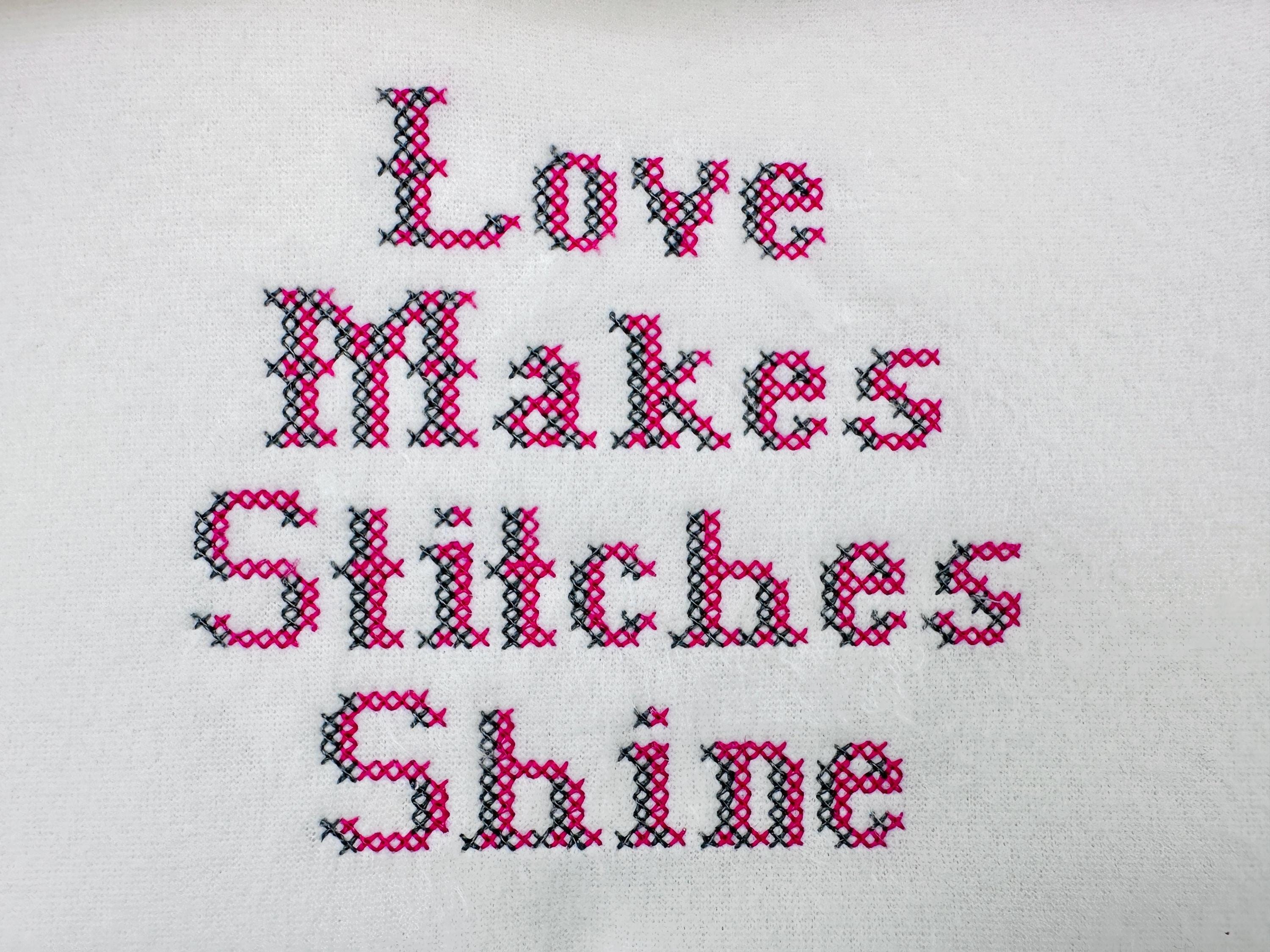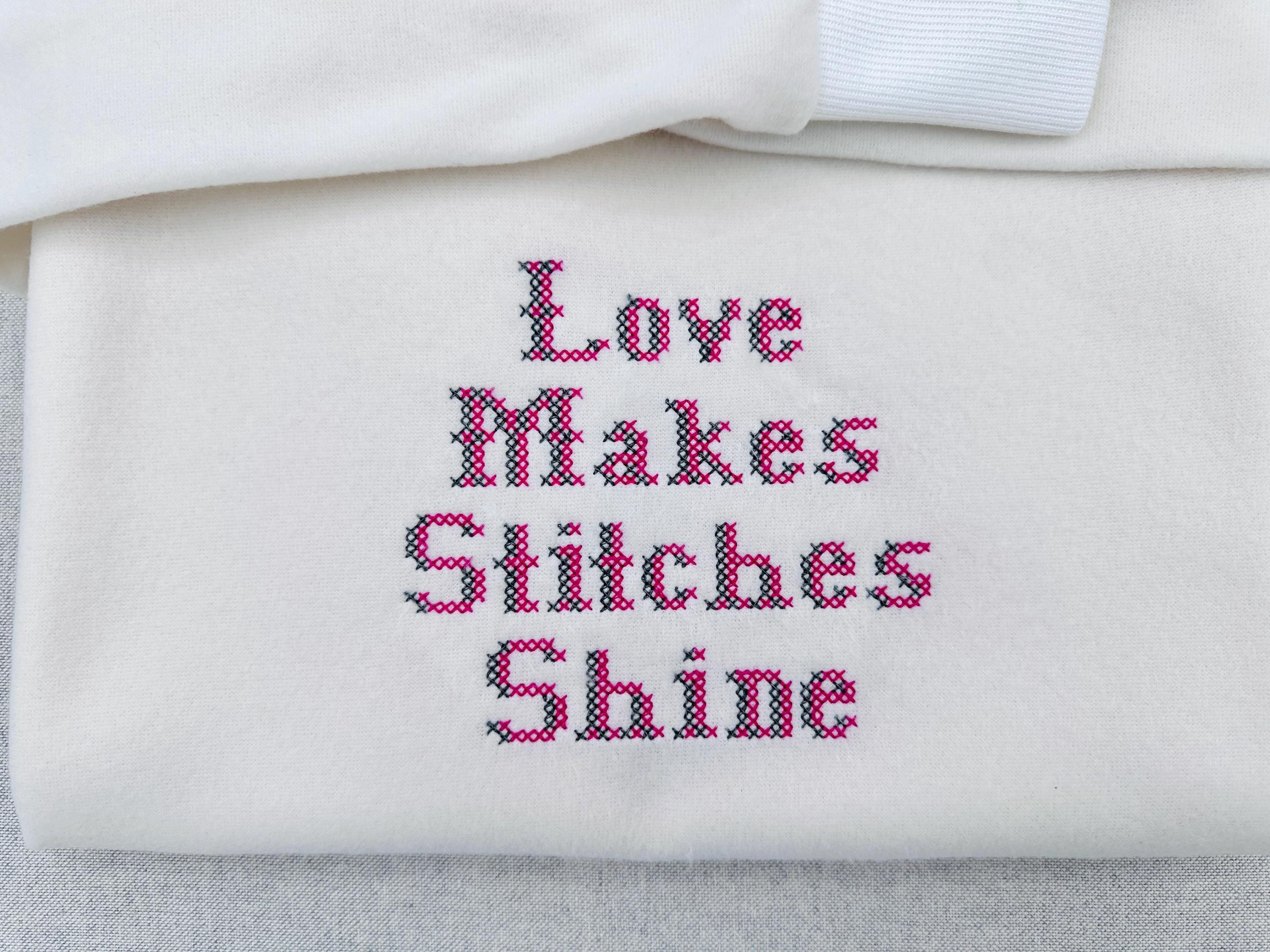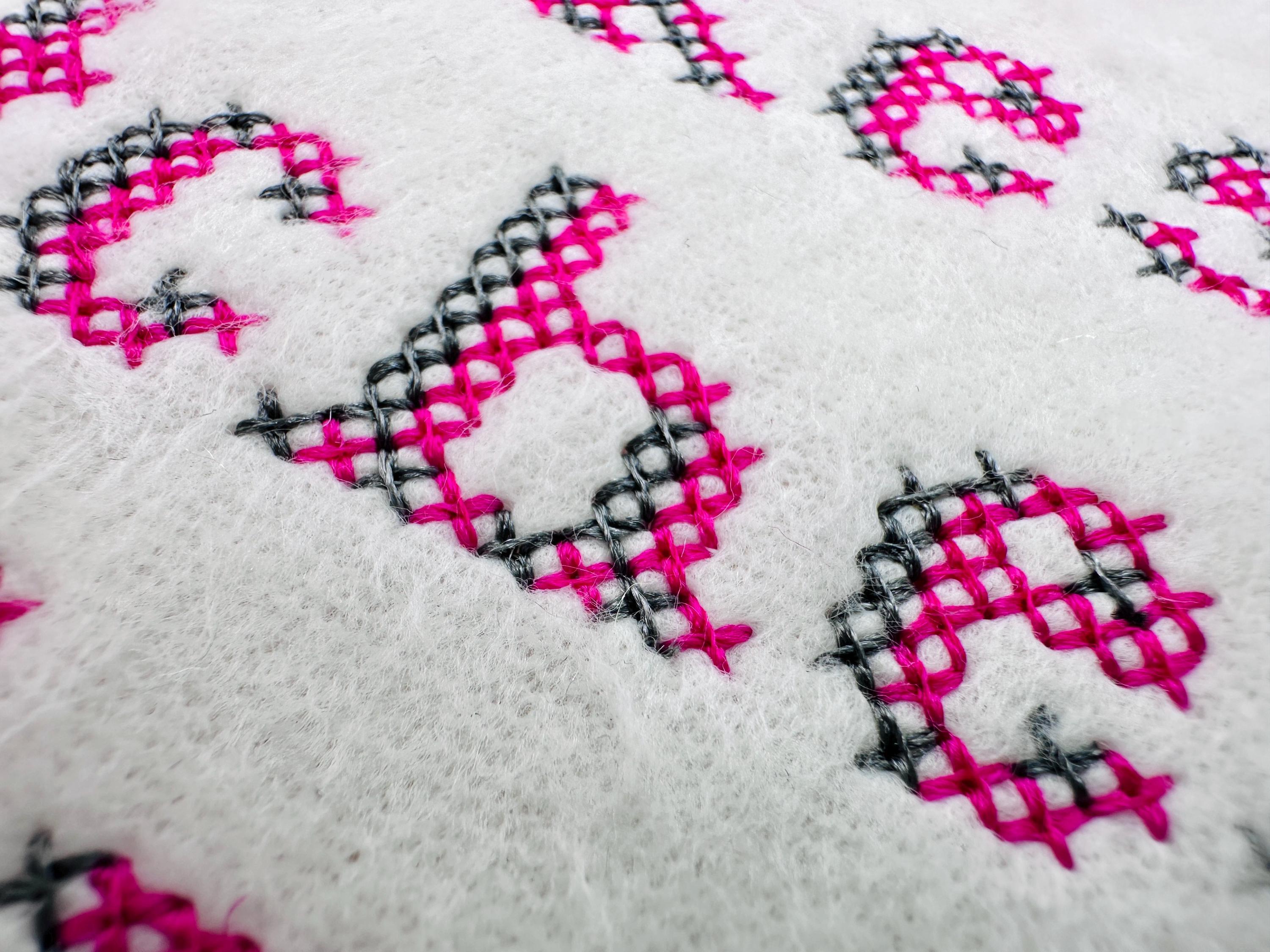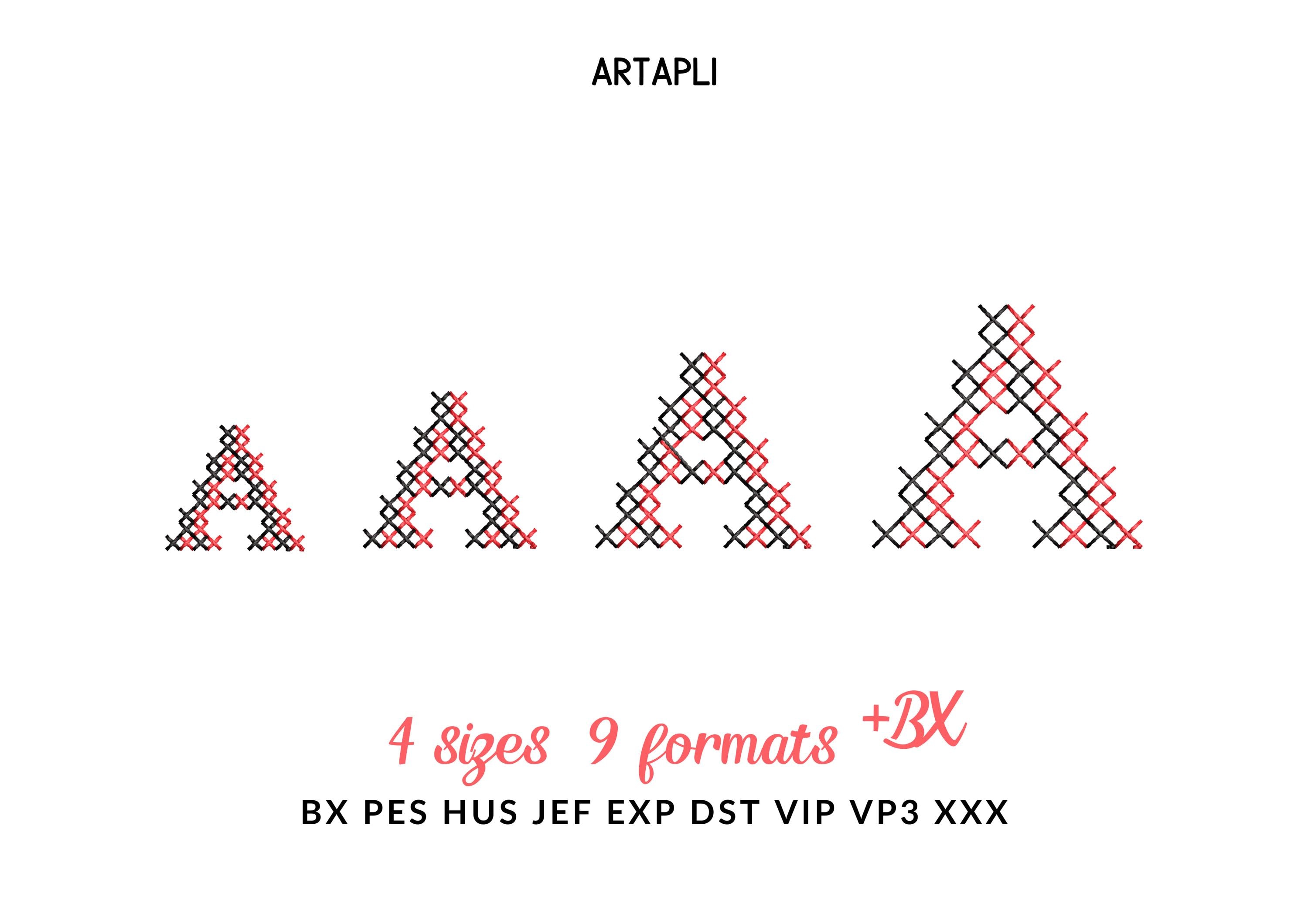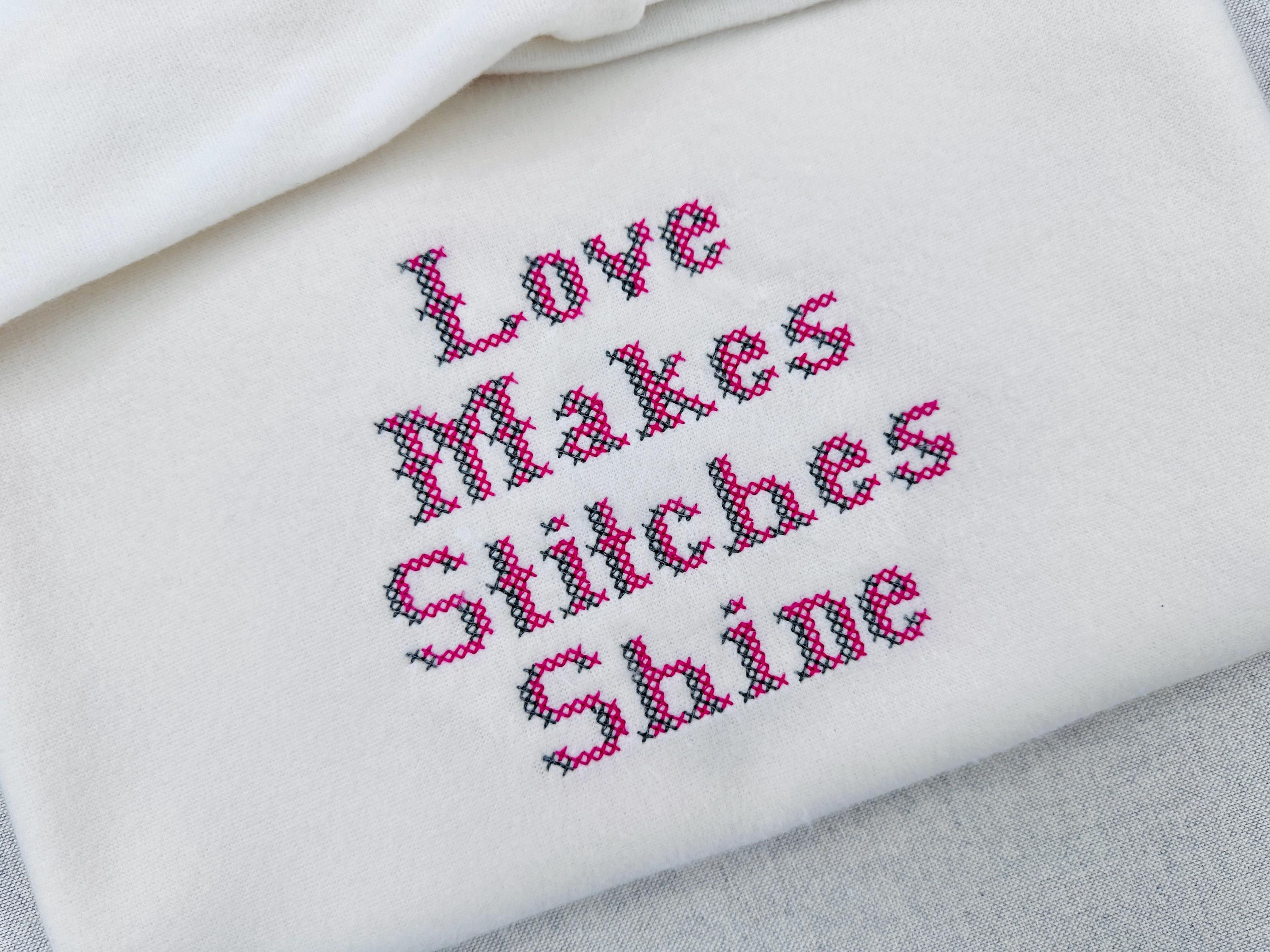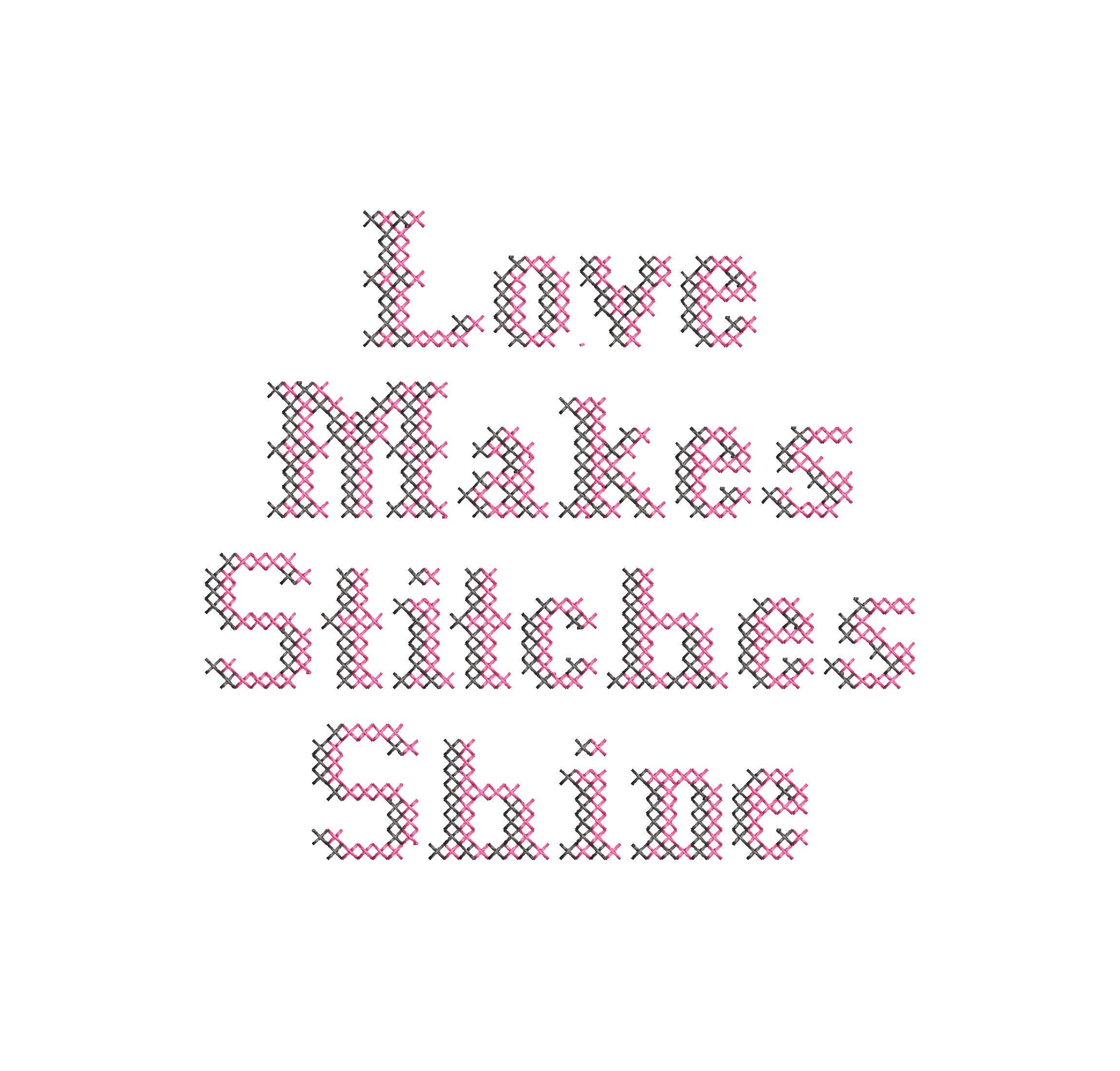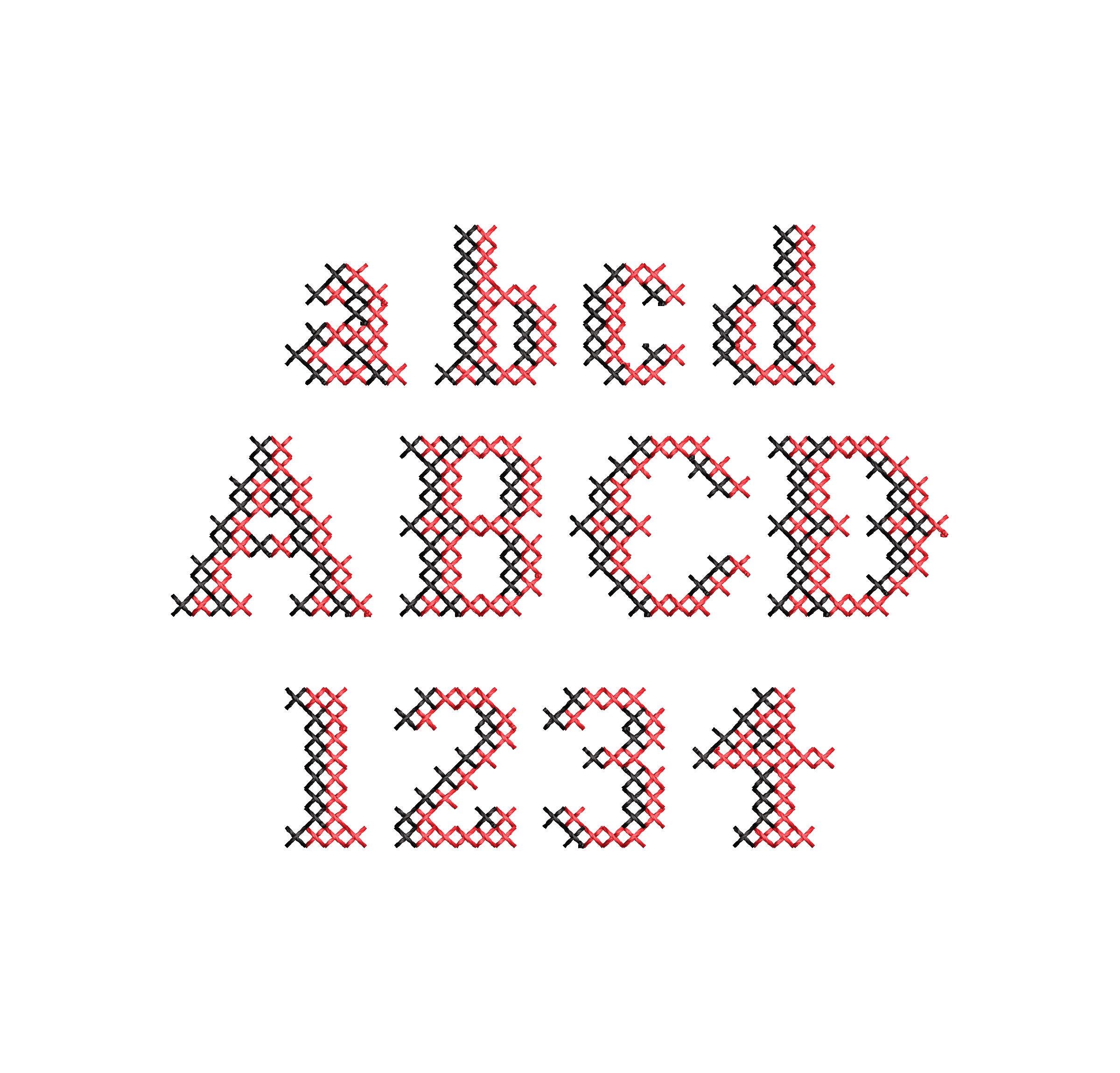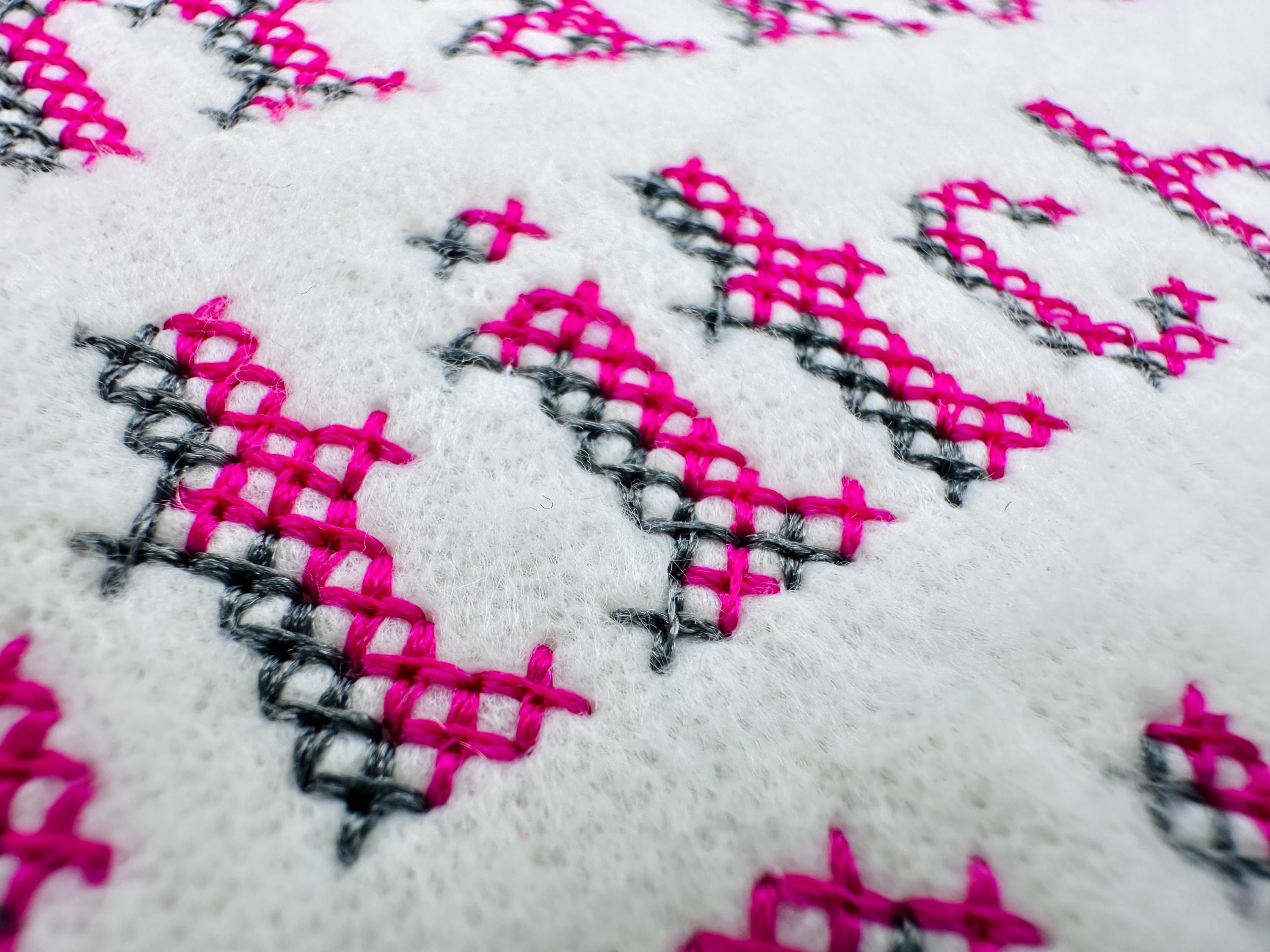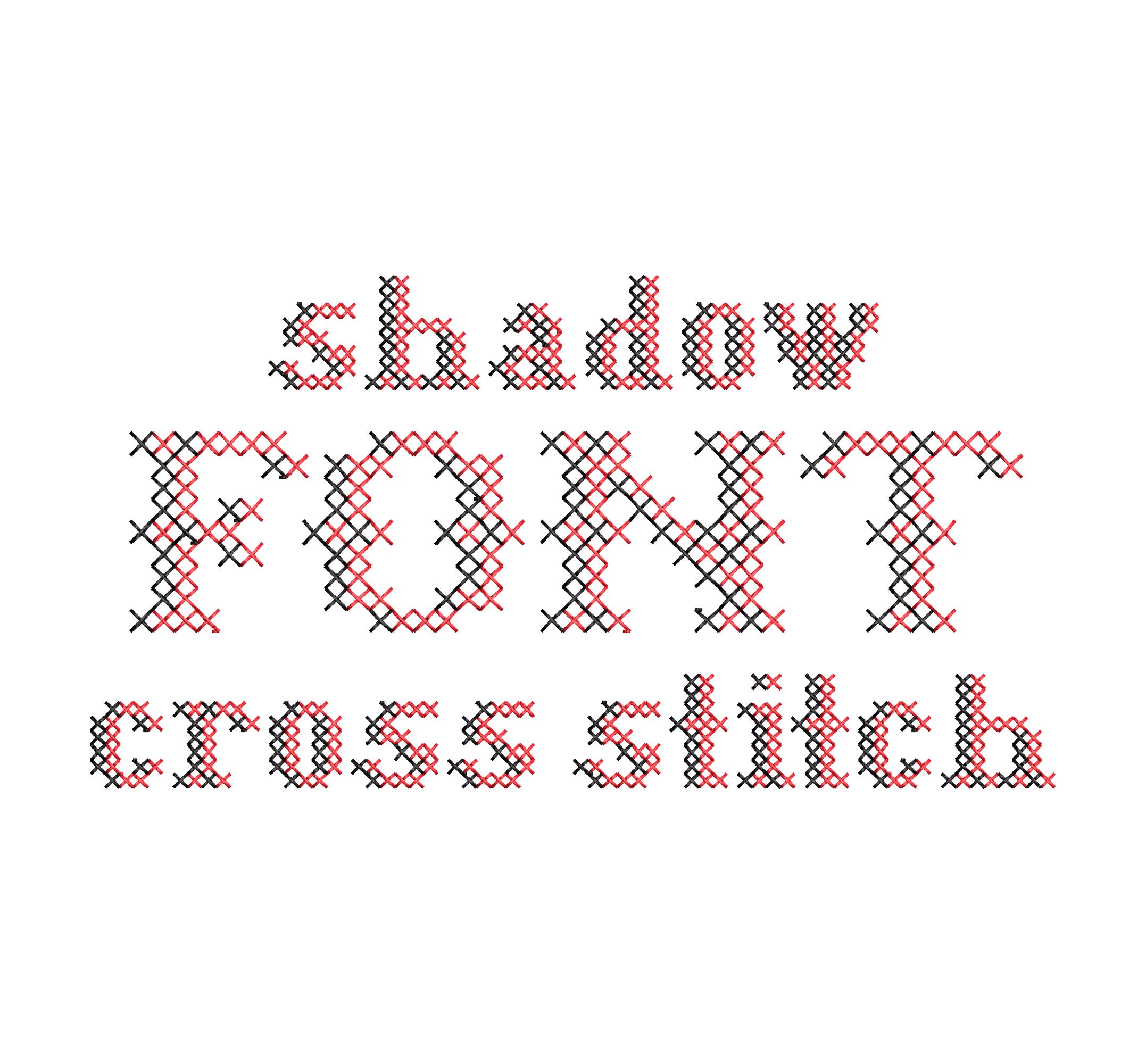
Cross Stitch Shadow FONT Cristella machine embroidery designs Alphabet Monogram letters numbers classy style mini sizes 0.6 up to 1.2 inches, and BX
Entire alphabet has uppercase and lowercase letters Aa-Zz, and numbers 0-9.